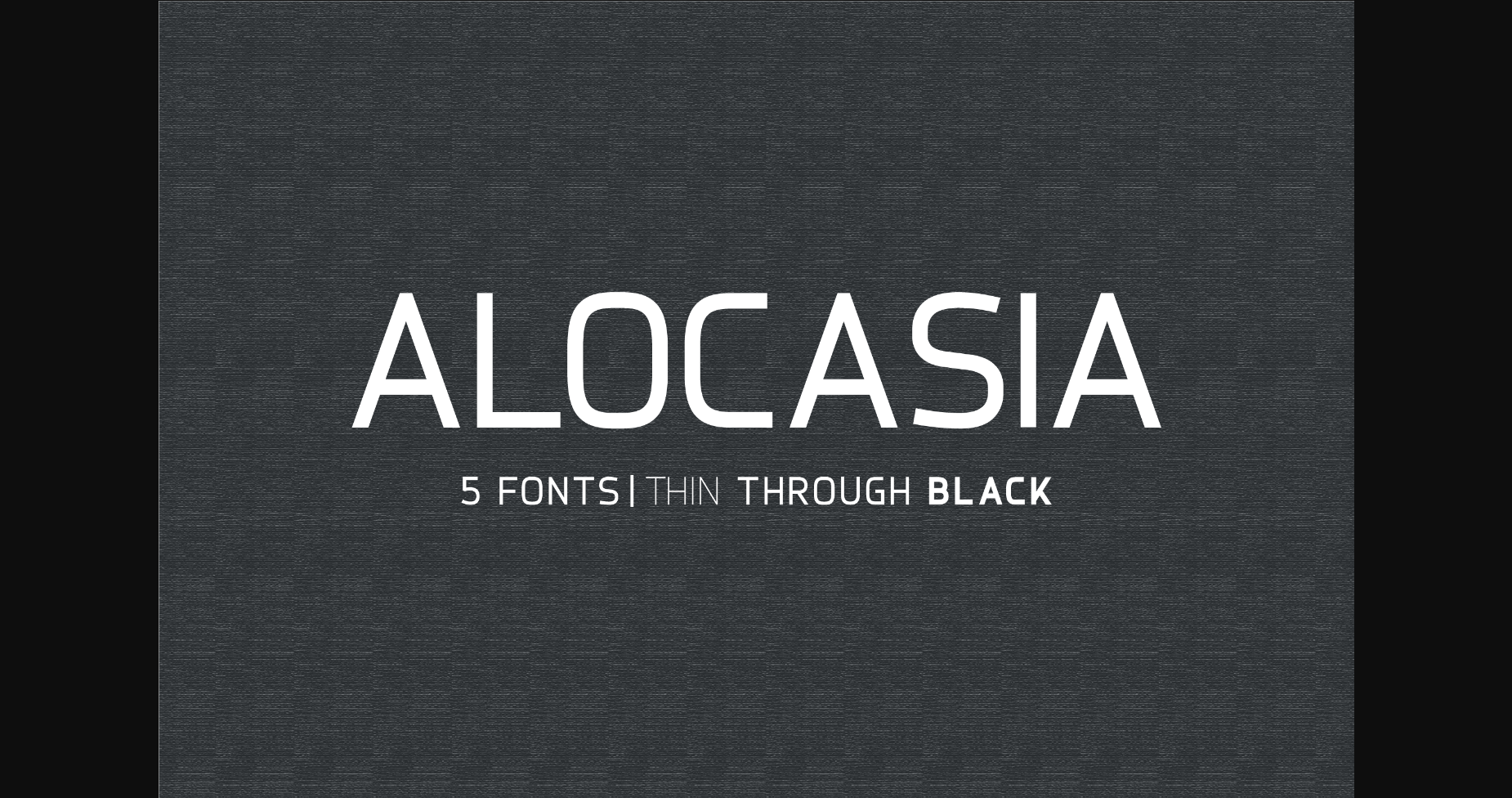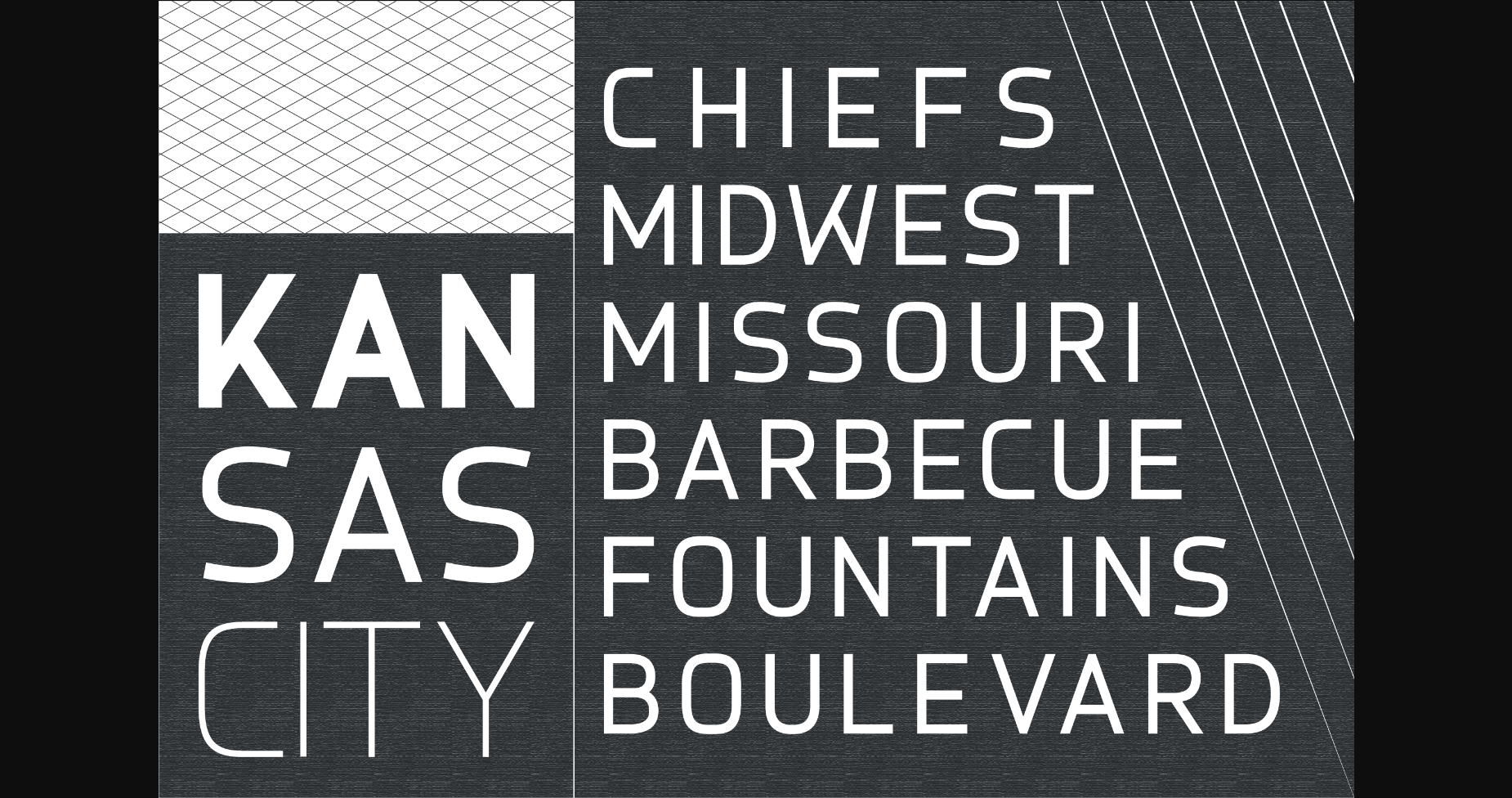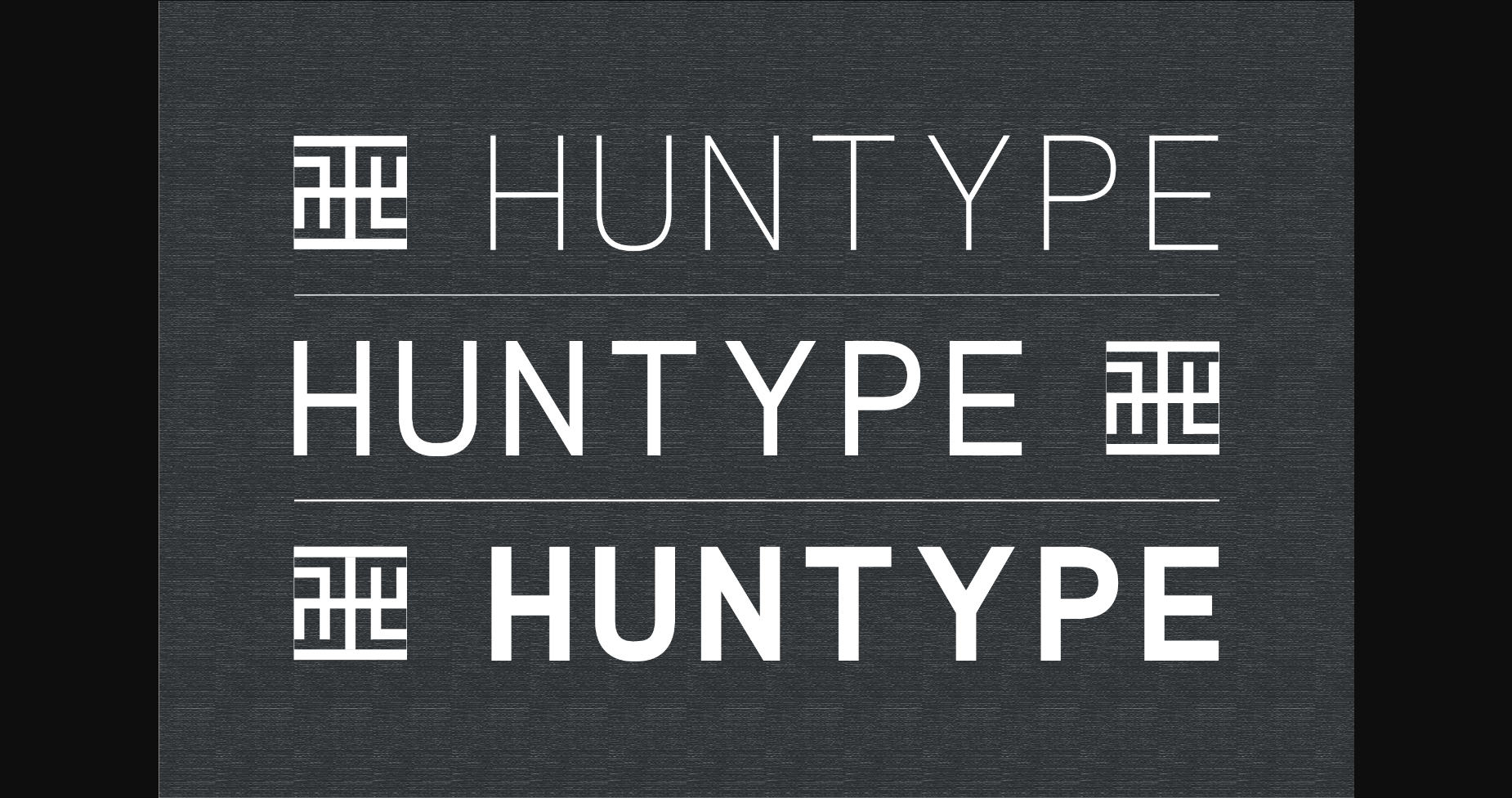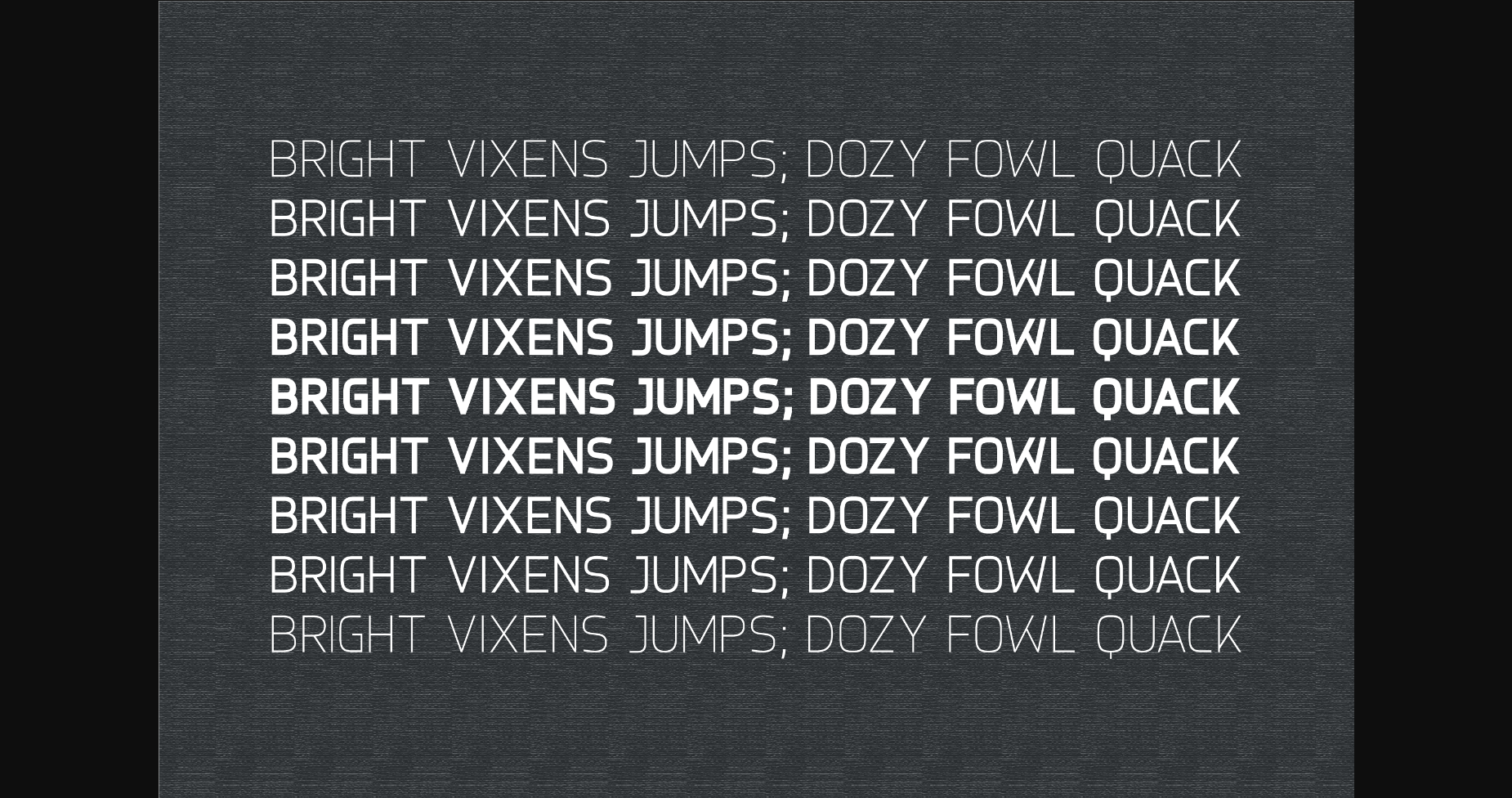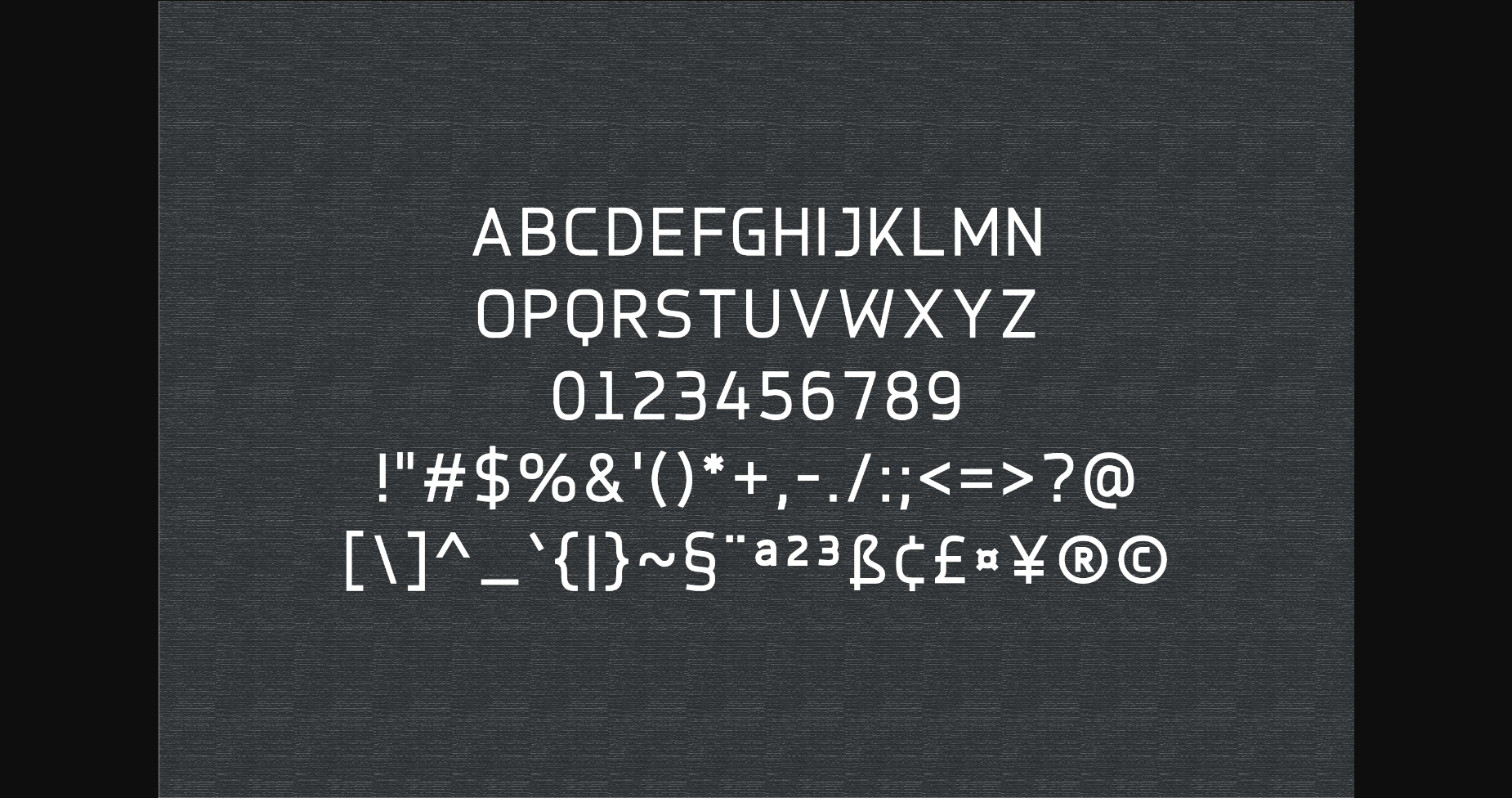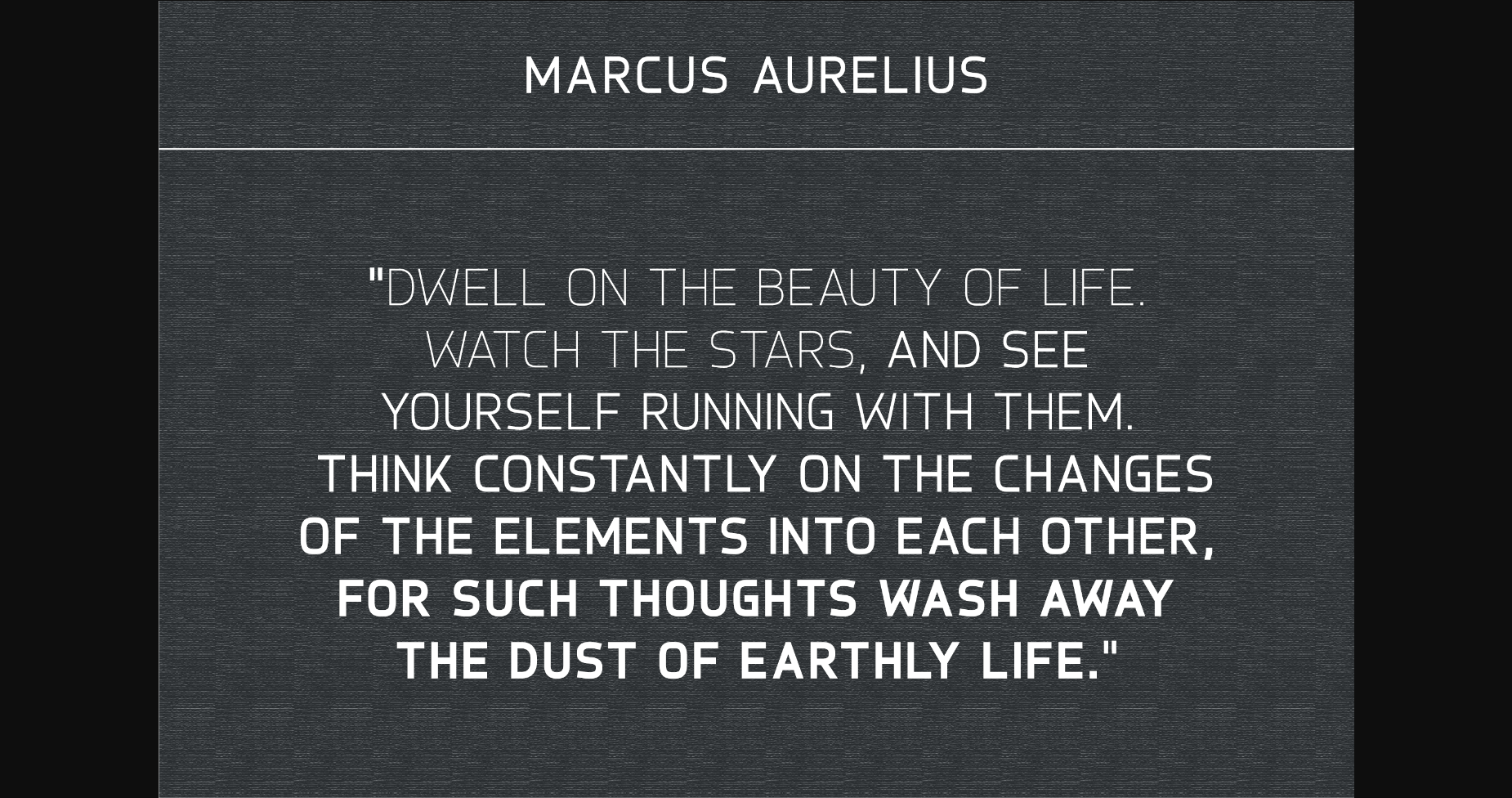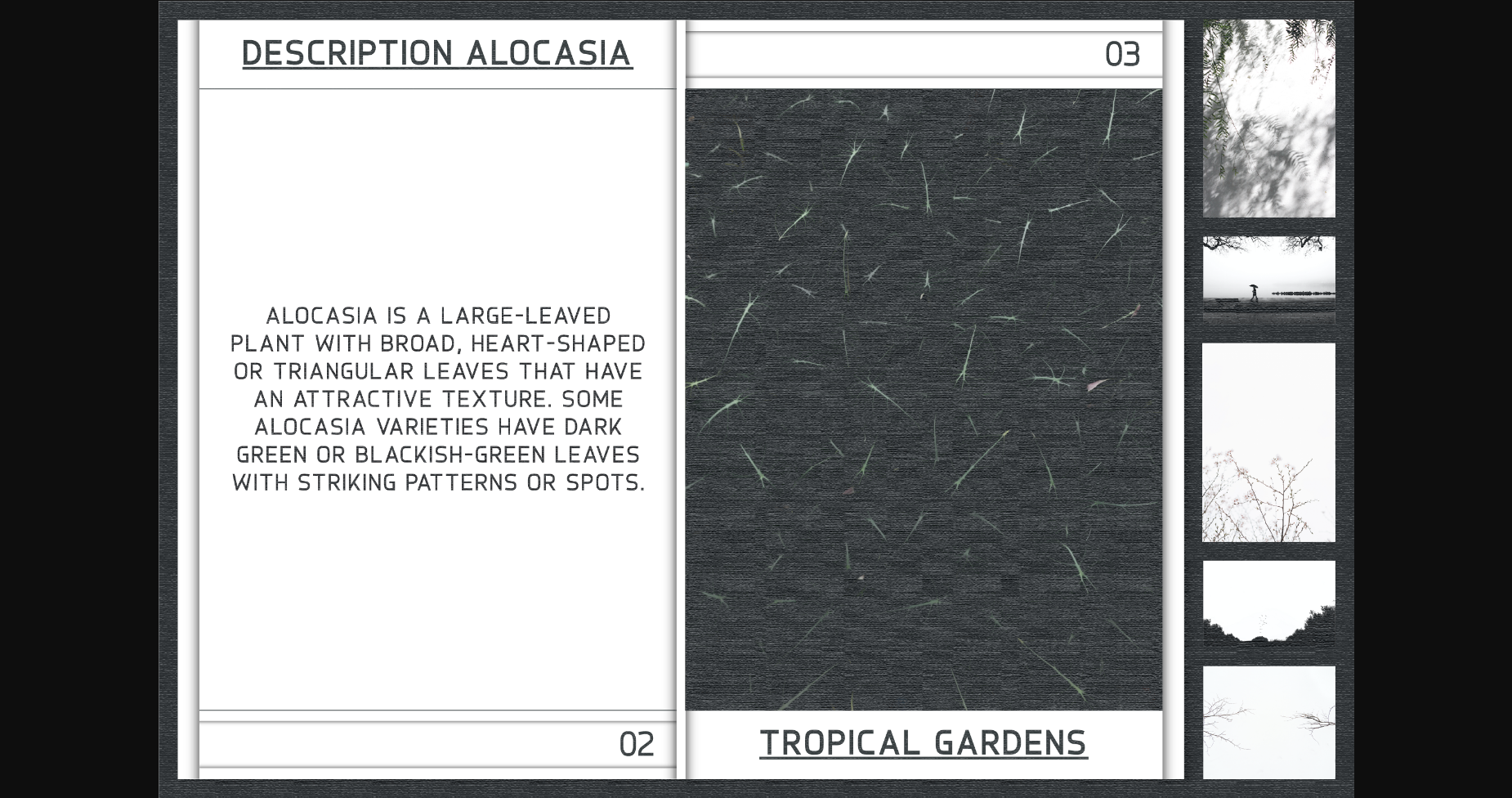
HomeSans Serif FontsAlocasia Font Sans Serif Fonts Alocasia Font FacebookXPinterestWhatsApp 1 of 9 ... Alocasia Font Poster 2... Alocasia Font Poster 3... Alocasia Font Poster 4... Alocasia Font Poster 5... Alocasia Font Poster 6... Alocasia Font Poster 7... Alocasia Font Poster 8... Alocasia Font Poster 9... About Alocasia Font With smooth and clean lines, and just a touch of contrast, Alocasia works beautifully for logos, branding, and web headings. DOWNLOAD NOW People also explored Rotterhead Font ZP Schnugguns Font Boulderstone Font Kayana Font Lenka Font Rabusta Greatness – 4 Type Font Handlist Font Bon Voyage Duo Font White Charlie Font 318 0 TagsAlocasia Font Previous articleGrotesko FontNext articleSibling Font LEAVE A REPLY Cancel reply Comment: Please enter your comment! Name:* Please enter your name here Email:* You have entered an incorrect email address! Please enter your email address here Website: Save my name, email, and website in this browser for the next time I comment. Personal Use Free Mellow Personal Use Free Read more about this font Pridaem Cooper Personal Use Free Read more about this font Zero Panzer Personal Use Free Read more about this font Monofonto Personal Use Free Read more about this font BLOG How to Install and Use Fonts on Windows, macOS, and Web Projects How to Install and Use Fonts on Windows, macOS, and Web Projects Fonts are a crucial part of design and branding. Whether you’re designing a... Fonts That Capture the Spirit of New York City Modern Sans-Serif Fonts That Brands Love in 2025 To increase your work productivity, choose the most readable fonts.